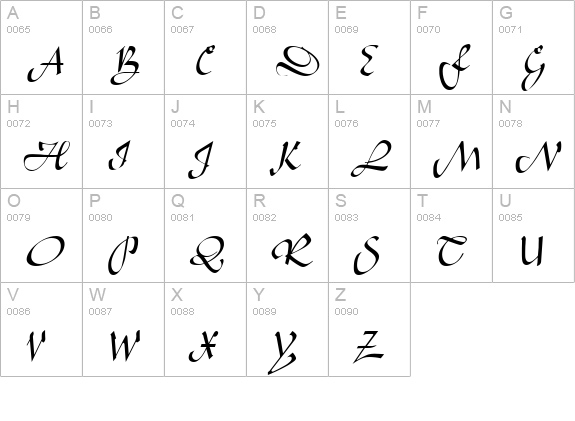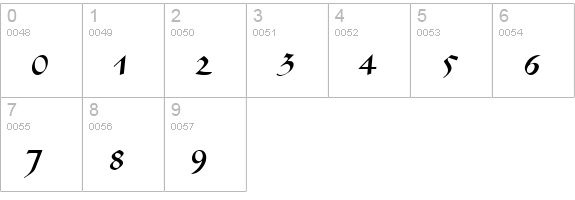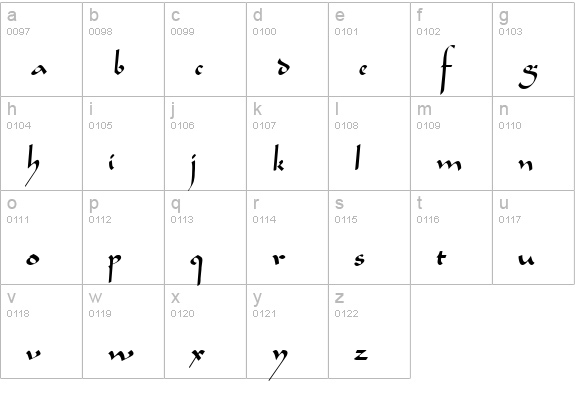
L690-Script-Regular is the standard, neutral variant in the L690 typeface family \xE2\x80\x94 well suited to general body text, paragraphs, and standard typographic work.
L690-Script-Regular is a charming and elegant font that exudes a sense of sophistication and style. Its flowing cursive style adds a touch of grace to any design project, making it perfect for invitations, greeting cards, and more. The smooth curves and delicate lines of L690-Script-Regular create a sense of fluidity and movement, drawing the eye across the page. What makes L690-Script-Regular even more appealing is that it is available for free download at FontsMarket.com. This means that you can easily access this beautiful font and incorporate it into your projects without any cost. Whether you are a designer, artist, or just someone looking to add a touch of elegance to your work, L690-Script-Regular is a fantastic choice. Download it today and elevate your designs with this stunning font.